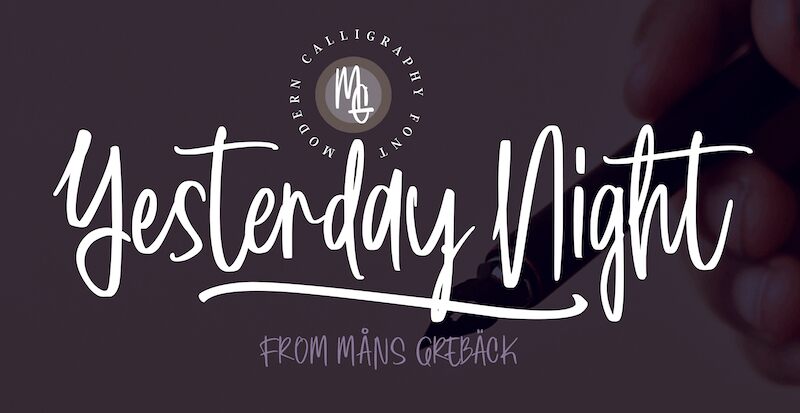
Yesterday Night PERSONAL Regular
Yesterday Night, designed by Mans Greback, is a charming handwritten font with a semi-light weight and condensed width. Its lively brush style adds an active and cute touch to any project.
Whether you're designing invitations, creating social media graphics, or crafting personalized stationery, Yesterday Night's hand-brushed appearance will infuse your work with authenticity and warmth.
It's perfect for adding a personal and approachable feel to your creative endeavors.
Use underscore _ anywhere in a word to make a swash.
Use multiple underscore to make different swashes.
Example: Crea___tion